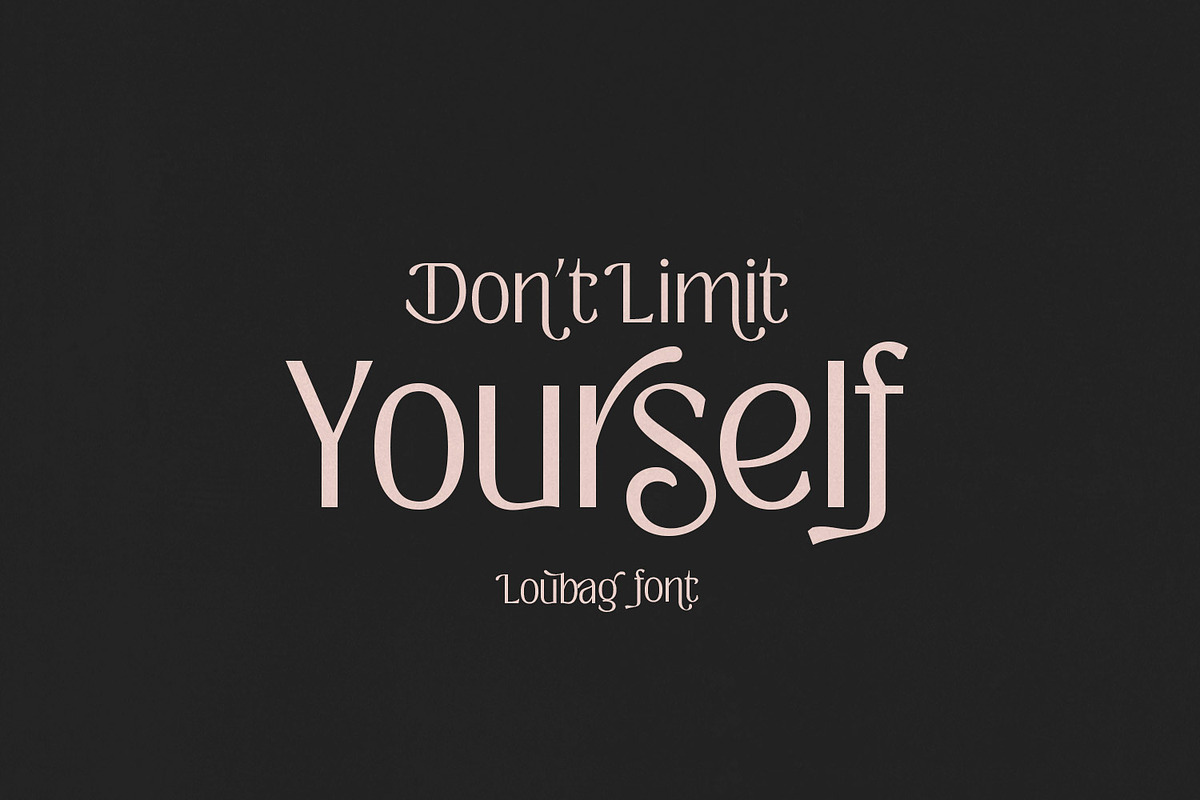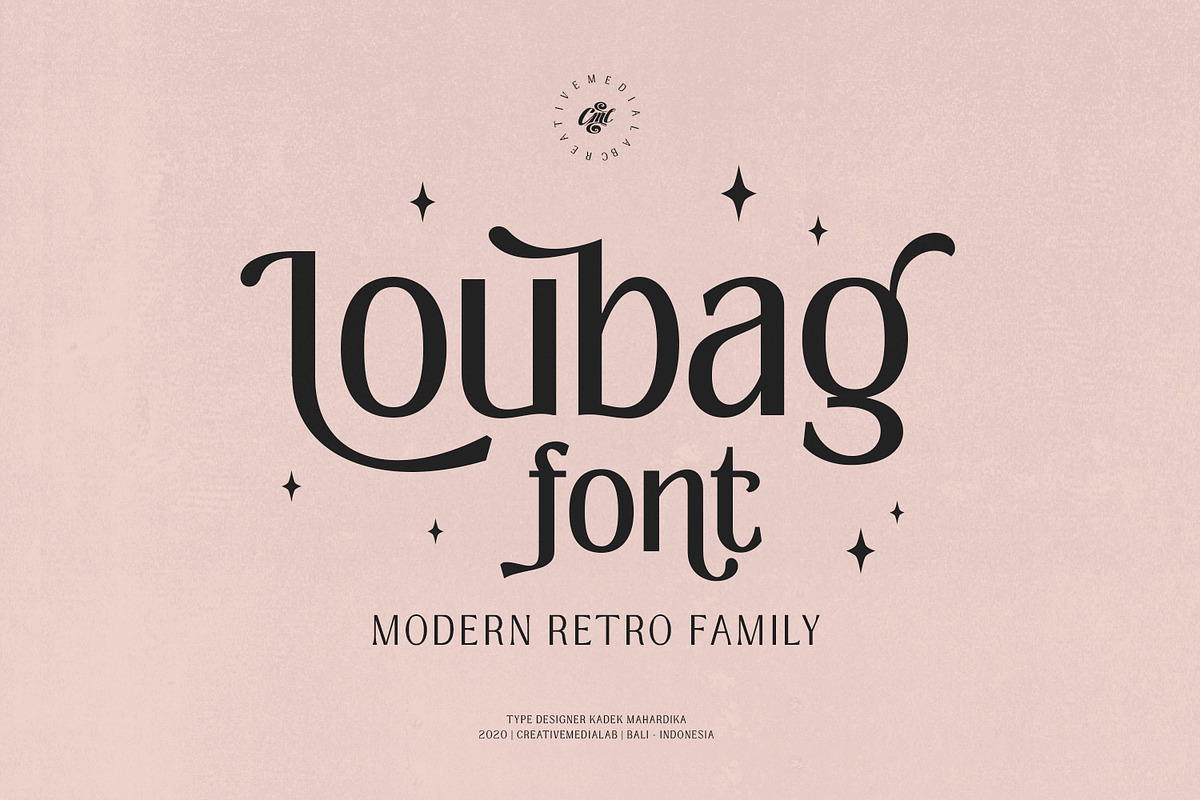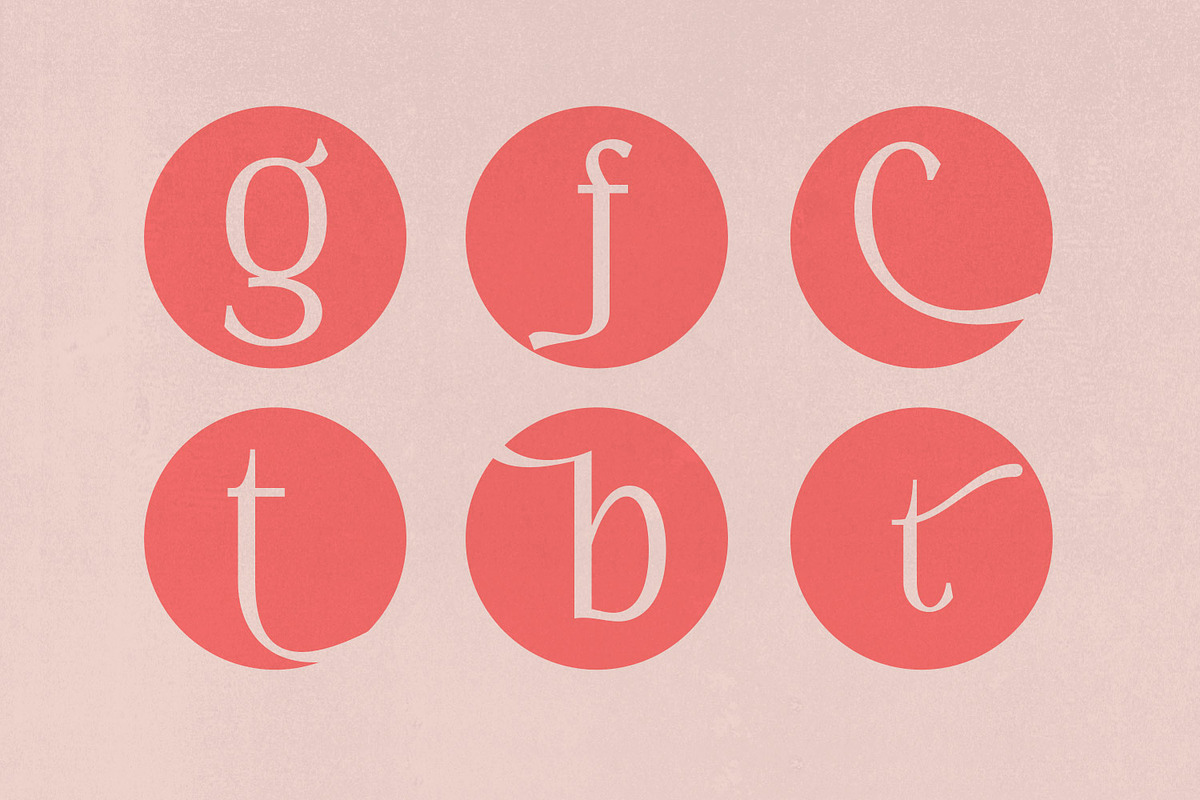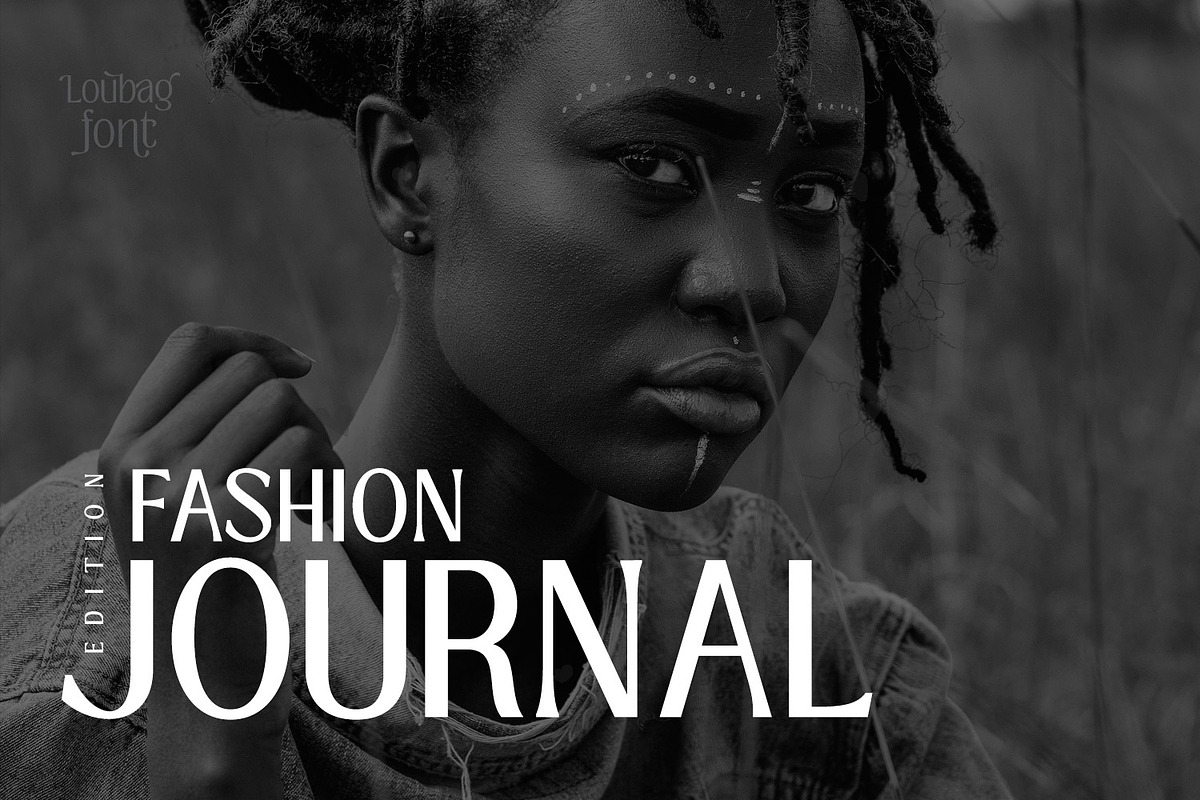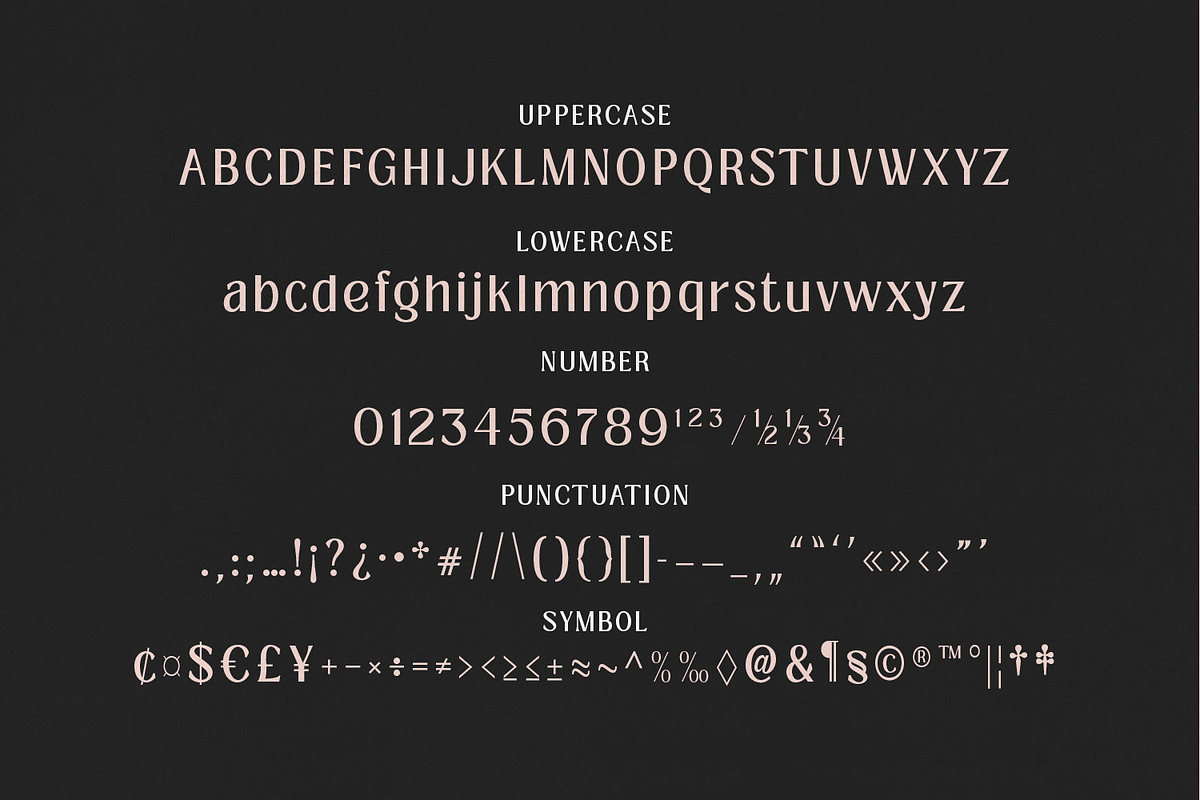
Loubag - Modern Retro family
Loubag is a combination of modern sans serif and serif font with a retro touch. Loubag also has an alternate option to create a unique word that makes Loubag unique.
This family has nine weights from thin to black and includes a Variable style and multilingual support, numbers, and currency symbols.
This versatile font is suitable for many design forms, such as magazines, postcards, logos, DIY Projects, invitation cards, quotes, vintage look design, an old classic, the 60s, 70s, 80s, wedding projects, and much more. We recommend using Adobe Illustrator or Photoshop.